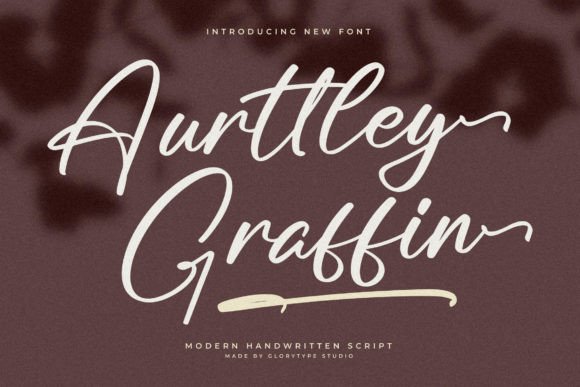
The Quest for the Perfect Script Font: Discovering Aurttley Graffin
Ah, the elusive perfect script font. We’ve all been there – working on a project, pouring our heart and soul into it, and then… font frustration sets in. I recall a particularly memorable project where I was tasked with creating a logo for a boutique brand. The client wanted something elegant, modern, and handwritten. I scoured the internet, tried out countless fonts, but nothing seemed quite right. That was until I stumbled upon Aurttley Graffin from Glorytype Studio. It was love at first sight! 💕
An Honest Review of Aurttley Graffin
- ✨ Elegant and modern handwritten script style that’s perfect for a wide range of projects
- ✅ Highly versatile and adaptable to different design contexts
- 💫 Beautifully crafted letters with a personal touch
- 🎨 Extensive range of OpenType features, glyphs, and stylistic alternates to experiment with
While Aurttley Graffin is an amazing font, there are a few things to keep in mind:
- ⚠️ Some users may find the font a tad too ornate for very small text sizes or body text
- 🤔 Limited availability of certain characters or diacritics, so it’s essential to test the font with your specific language or alphabet
The Story Behind Aurttley Graffin
Glorytype Studio, the creative force behind Aurttley Graffin, is known for crafting beautiful, unique fonts that capture the essence of handwritten script. While the exact inspiration behind Aurttley Graffin is unclear, it’s evident that the designer poured their heart and soul into creating a font that’s both elegant and approachable.
| Font Name | Aurttley Graffin Font |
| Author | Glorytype Studio |
Q: What type of projects is Aurttley Graffin suitable for?
A: Aurttley Graffin is an incredibly versatile font, suitable for a wide range of projects, including logos, branding projects, homeware designs, product packaging, mugs, quotes, posters, shopping bags, t-shirts, book covers, name cards, invitation cards, greeting cards, labels, photography, watermarks, and more!
Q: Is Aurttley Graffin available in different languages?
A: While Aurttley Graffin may not support every language, it does include a range of characters and diacritics to accommodate various alphabets. Be sure to test the font with your specific language or alphabet to ensure compatibility.